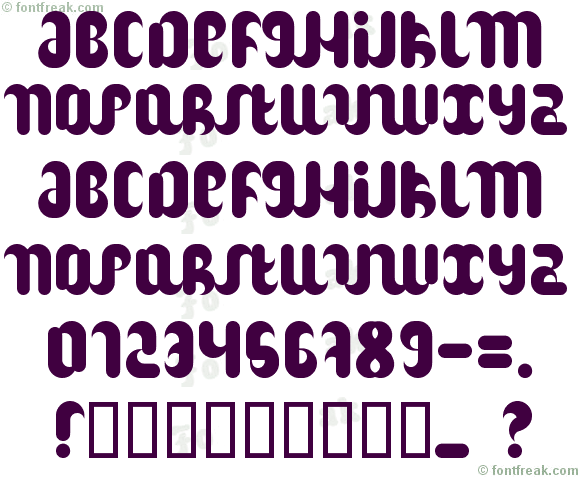
Hitch
Hitch by Formfound is a captivating display font that perfectly balances a modern aesthetic with a touch of whimsy. As a decorative typeface, Hitch features unique visual characteristics that set it apart from typical fonts. The stroke weight is bold and consistent, adding an air of confidence, while the rounded edges contribute to a friendly and approachable appearance. Its ample spacing ensures readability, making it suitable for various creative applications.
This font is ideal for a host of specific use cases. It shines in wedding invitations, where its playful yet elegant style can evoke a sense of joy and celebration. Additionally, it works wonderfully for movie posters, capturing attention with its striking presence and unique flair. Restaurant menus can also benefit from the Hitch font, as it can enhance the overall dining experience with its inviting look. Furthermore, small business owners can leverage this font for branding materials, ensuring their marketing stands out in a crowded marketplace.
What truly makes the Hitch font stand out is its distinctive blend of modernity and charm. It invites users to explore new design possibilities while retaining a sense of familiarity that resonates with audiences. For those seeking a unique touch in their projects, the Hitch font free download is an excellent choice, promising to elevate any design with its eye-catching style and character.